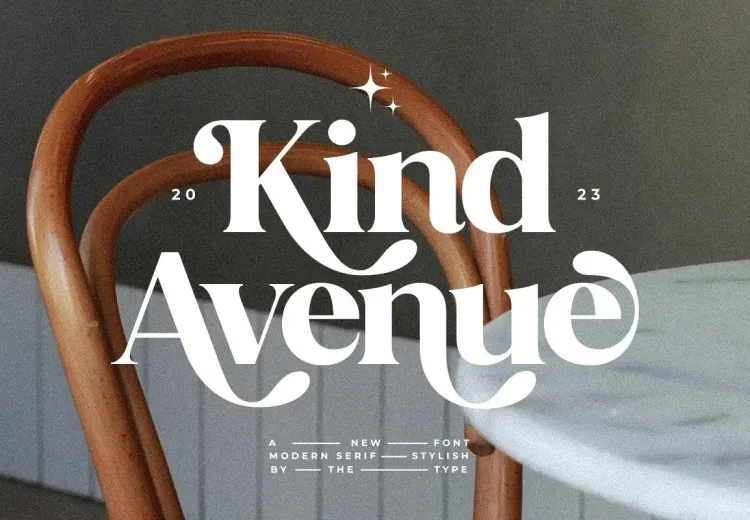
Kind Avenue Font
Kind Avenue is a stylish vintage serif font that combines classic charm with a playful twist. Though it carries a traditional appearance, its expressive characters and versatile ligatures make it adaptable to modern design needs.
Key Features of Kind Avenue:
• Vintage Charm: Classic serif design with a timeless appeal, perfect for evoking a sense of nostalgia and sophistication.
• Expressive Characters: While it retains a conservative feel, the font’s unique characters bring a touch of modernity and playfulness to your designs.
• Versatile Ligatures: Experiment with substitutions and ligatures to achieve a distinctive and personalized style, enhancing the overall visual impact of your work.
Ideal Uses for Kind Avenue:
• Branding: Adds a refined and stylish touch to logos and brand identities.
• Editorial Design: Perfect for magazines, book covers, and other print materials that benefit from a vintage yet contemporary look.
• Invitations & Stationery: Ideal for creating elegant wedding invitations, event stationery, and more.
• Marketing Materials: Enhances packaging, advertisements, and promotional designs with its unique style.